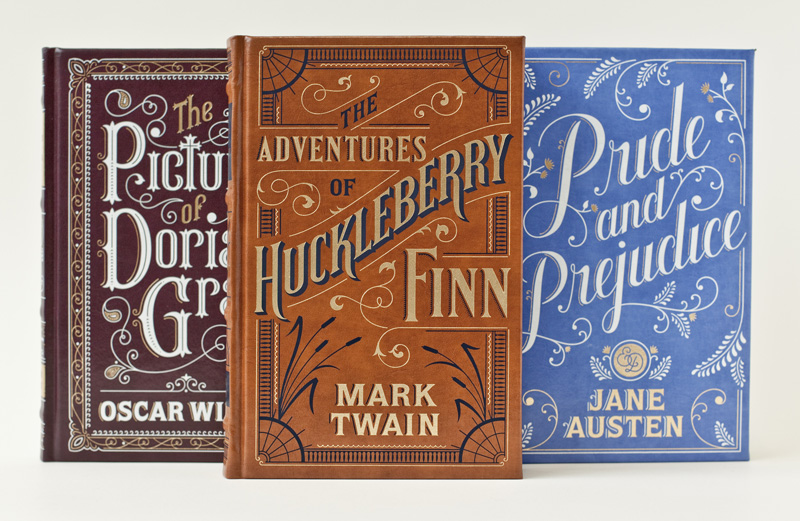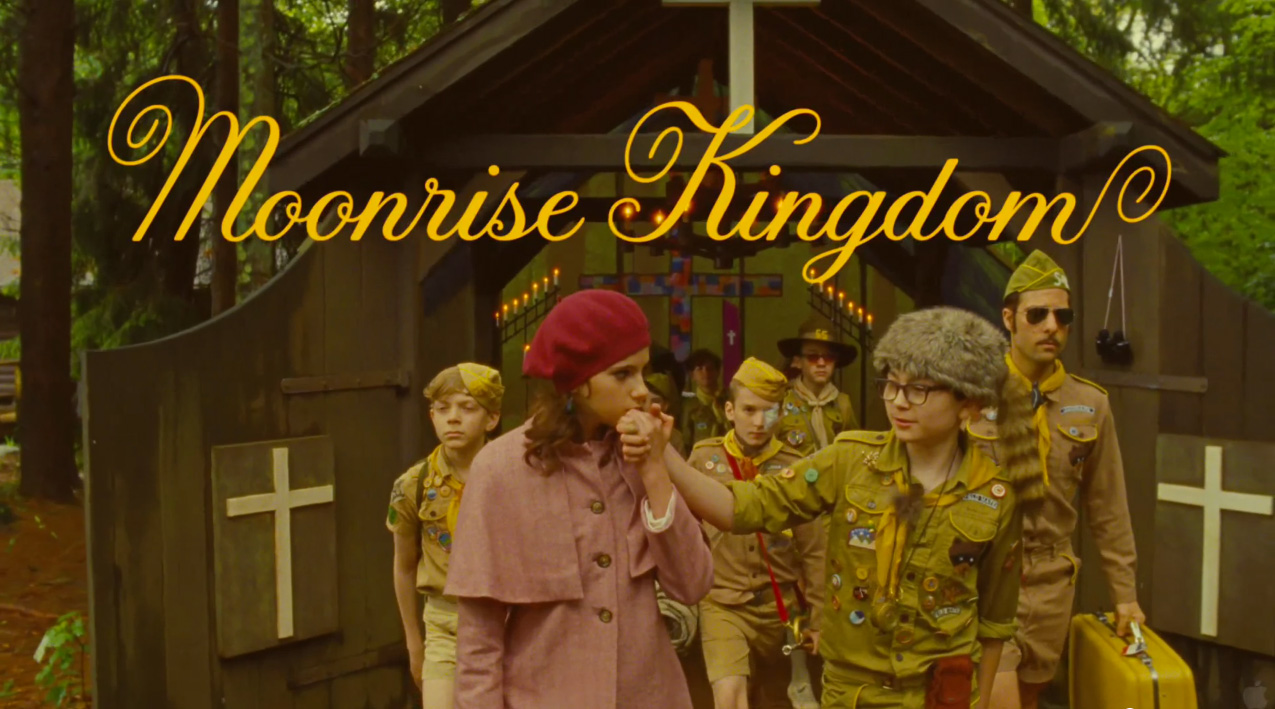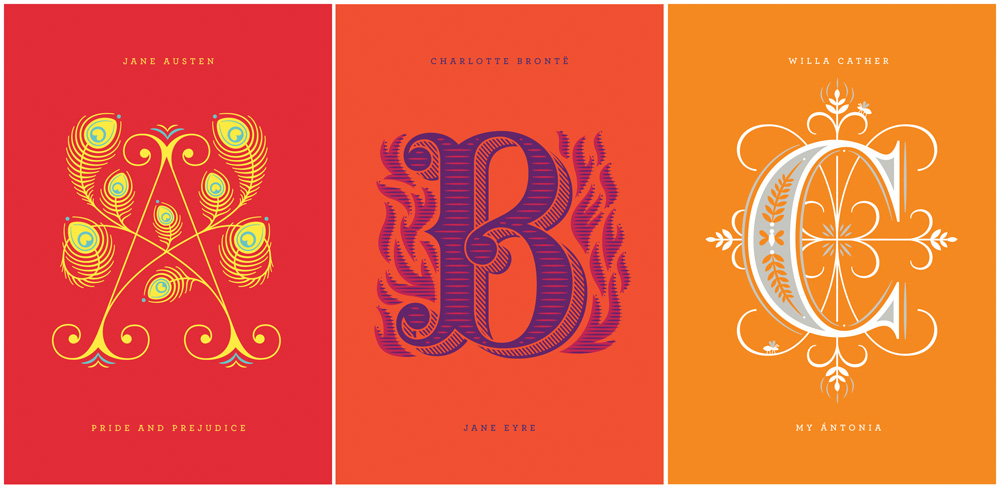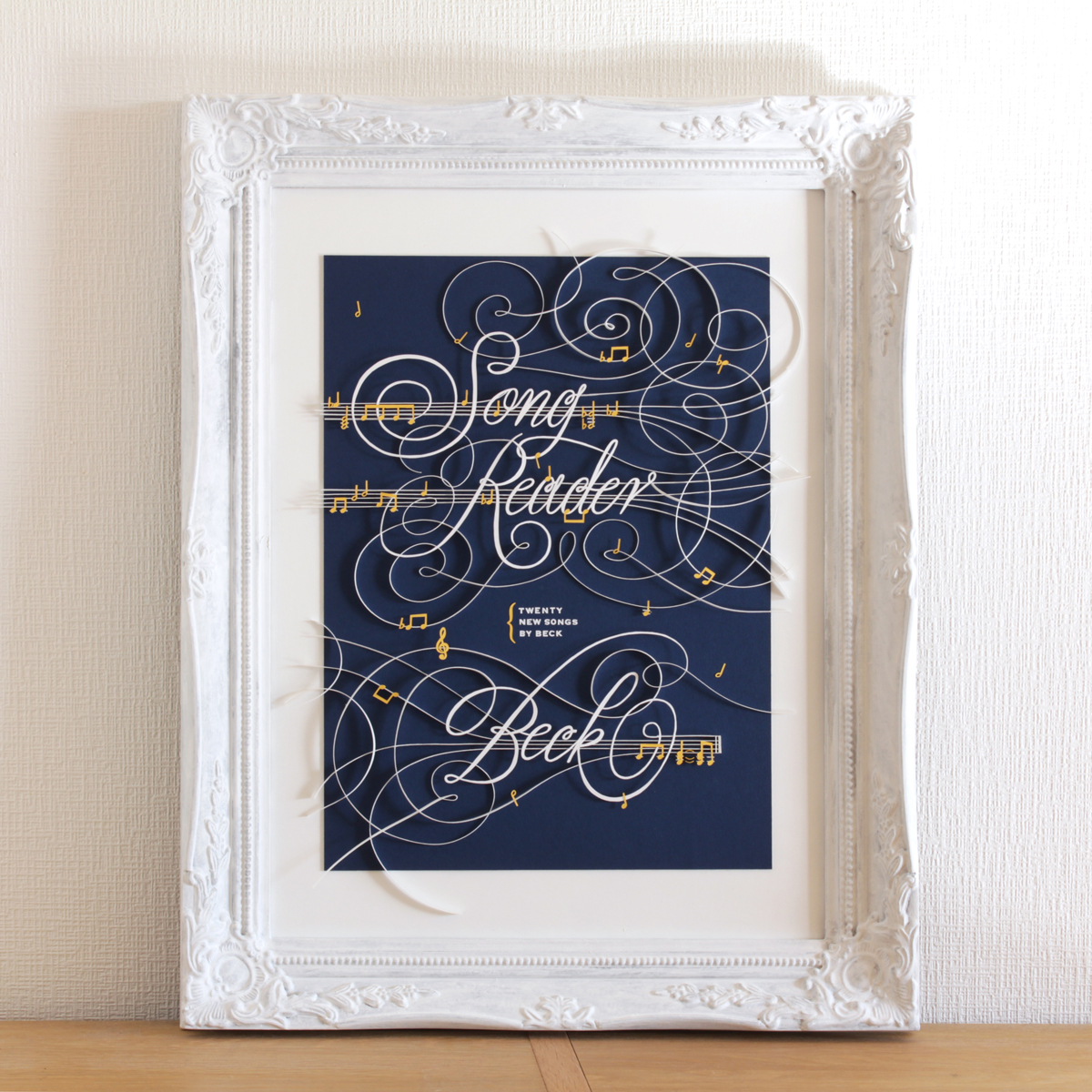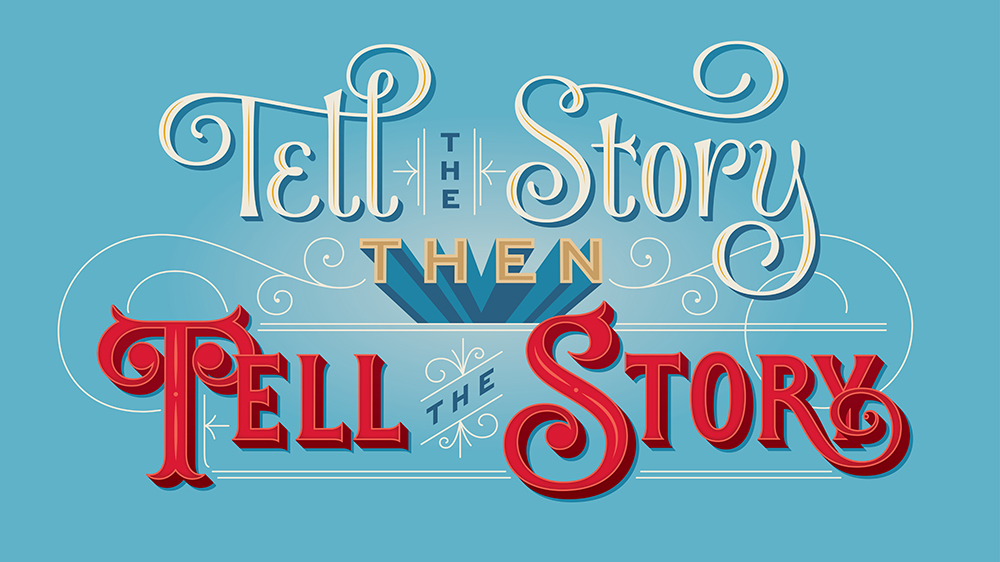
Lettering Legend – Jessica Hische Interview
Jessica Hische is a world renowned lettering artist and in the eyes of many a creative genius too. Her work has delighted viewers and captured the hearts of artists, designers, her family, friends and a great deal of others over the years. You might find Jessica’s lettering work on book covers, used in film and television for titles, used in marketing campaigns and used for different elements of branding. Artists have credited Jessica alone for providing the inspiration they needed to get started within the field of hand lettering, and pursue careers in this area.
The term ‘side projects’ gets passed around in the lettering community, and not everyone understands the importance of a side project. Jessica is an advocate of side projects and has gained a great deal of attention and work from them. ‘Daily Drop Cap’ and ‘Should I Work for Free?’ are just a couple of side projects that she has worked on, and that have provided just as much inspiration as her client work has. To add to this Jessica has also written a fantastic book titled ‘In Progress’, which teaches readers how to letter. She has also created an in-depth class available through Skillshare. The class like the book, focuses on teaching lettering but with an emphasis on designing drop caps, something through her side projects that Jessica has proved she is highly skilled at doing. It doesn’t really need to be stated as it goes without saying, with all that she has achieved, created and all those that she has inspired, Jessica Hische is a ‘Lettering Legend’.
If you’re already familiar with Jessica you may know that her strong passion for art has always been present, ever since she was small. You may also be aware of the fact that she never went to a prestigious art school. To reach the distinguished point she is at now Jessica has worked hard, practiced a lot, embraced opportunity and brought a great amount of enthusiasm along for the ride.
Jessica has had some experiences that not all aspiring lettering artists may encounter. As you read on though you’ll discover how much she thinks certain experiences can impact the path of a lettering artist. Jessica also discusses the necessity to learn calligraphy in order to draw letters, provides insight into the process that she used to design the beautiful lettering for Wes Anderson’s film ‘Moonrise Kingdom’, and shares more.
Facebook’s design team contact you and ask if you can update their globally recognisable ‘f’ logo. It’s a well known fact you are a master of caps, what would you do with the project and why?
“Honestly, I love projects like that—taking an existing mark and refining it. They’ve actually made some refinements to it over time which really improved it from the original. If they approached me, first and foremost I would ask them why they want to update it—did they notice it doesn’t work for them in certain formats? Does it become unreadable at certain sizes? Do they just feel like it’s a little too vanilla? Then I would address whatever problem made them think to change it in the first place. If they were having issues using it at certain sizes, I would work with the weight of the letter and the whitespace surrounding it. If they just didn’t like the style I would explore different ways to draw the f, keeping a lot of the original DNA so that it remains recognisable.”
Jessica Hische Penguin Drop Caps - Lettering Tutorial
Many lettering artists believe learning calligraphy is an integral step towards drawing letters well. In the past you have described yourself as not being a calligrapher, despite this you’re incredibly skilled at drawing letters. Do you think being competent at calligraphy does make a significant difference in ability to draw letters, or is this subjective?
“I think understanding calligraphy (and how calligraphic tools work) is very important in understanding letterform structure, especially within certain typographic styles. You don’t have to be a skilled calligrapher to do this (meaning, you don’t need to be so skilled at using a pen / brush that people would professionally hire you to perfectly address hundreds of their wedding envelopes). There’s a difference between drawing calligraphically (in which you respect the rules of calligraphy and how a pen would react when lettering) and writing calligraphy.”
Jessica Hische Songs by Beck - Lettering Tutorial
Image © Jessica Hische
Before venturing out and working on your own you worked as a senior designer for Louise Fili. For those that are really serious about lettering would you recommend that they seek out similar experiences, or is it still possible to reach your high levels of success without having these kinds of opportunities?
“I don’t think that you need an employer like Louise, but I do think that having a mentor to help guide your education within specific design disciplines can be incredibly helpful. Working for Louise was like having an apprenticeship. She has a very specialized skill set—not one that every designer has, even other amazing designers. You can learn from specialists through reading their books, taking workshops, studying their work, but it’s definitely hard to beat the one on one mentorship. It’s just a faster route to improving your skills (assuming your mentor is a good teacher and you are a receptive student), but not the only route.”